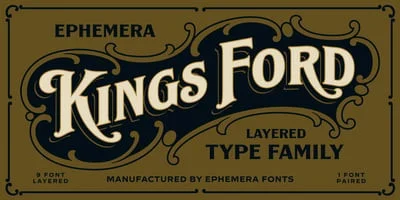
Ephemera Kingsford Font
Ephemera Kingsford Font is perfect for vintage ephemera collections, antique print shop branding, historical archive displays, nostalgic scrapbooking materials, old-fashioned general store signage, heritage museum exhibitions, classic paper goods packaging, and authentic period advertising reproductions.
Ephemera Kingsford Font is exciting because it captures the fleeting beauty of forgotten printed treasures with its weathered letterforms that seem to emerge from dusty attic boxes filled with old postcards, theater tickets, and handwritten notes from bygone eras. The typeface embodies the poignant charm of ephemeral printed matter and the nostalgic power of everyday objects that once briefly touched human lives, creating an immediate sense of historical intimacy and temporal beauty that resonates with collectors and historians who cherish life's transient moments.
Ephemera Kingsford Font family includes Light, Regular, Medium, Bold, and Aged variants, complemented by vintage printing textures and antique decorative elements, providing designers with authentic typography tools for creating communications that celebrate the overlooked beauty of everyday printed materials and the stories they preserve from ordinary people's extraordinary lives.
Whether you're developing a vintage collectibles brand identity, designing historical preservation materials, or creating nostalgic archival content, Ephemera Kingsford Font offers unmatched historical authenticity and ephemeral appeal. This evocative typeface perfectly captures the essence of forgotten printed matter while maintaining contemporary functionality for modern heritage marketing and historical communications. The font's weathered character variations and archival rhythm make it particularly effective for brands that emphasize historical preservation, collecting culture, and the kind of authentic heritage experience that connects people with the tangible remnants of past lives and forgotten stories. Historical preservationists consistently choose Ephemera Kingsford Font when projects require typography that communicates nostalgia, authenticity, and the kind of respectful curation that transforms forgotten printed fragments into meaningful connections with history, making it indispensable for heritage collection branding, historical education marketing, and any application where ephemeral typography can honor the beautiful tradition of everyday printing and remind us that the most ordinary objects often hold the most extraordinary stories about how people lived, loved, and left their mark on the world through the simple printed materials that briefly graced their daily lives.